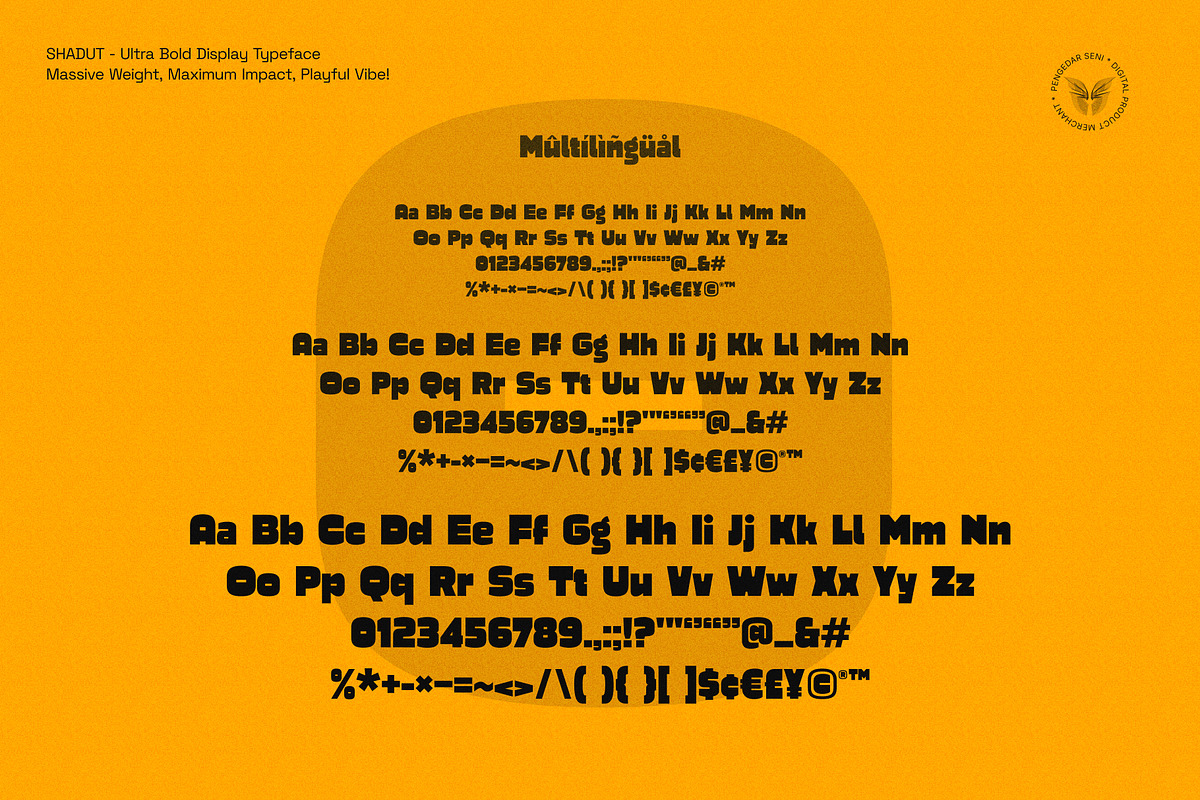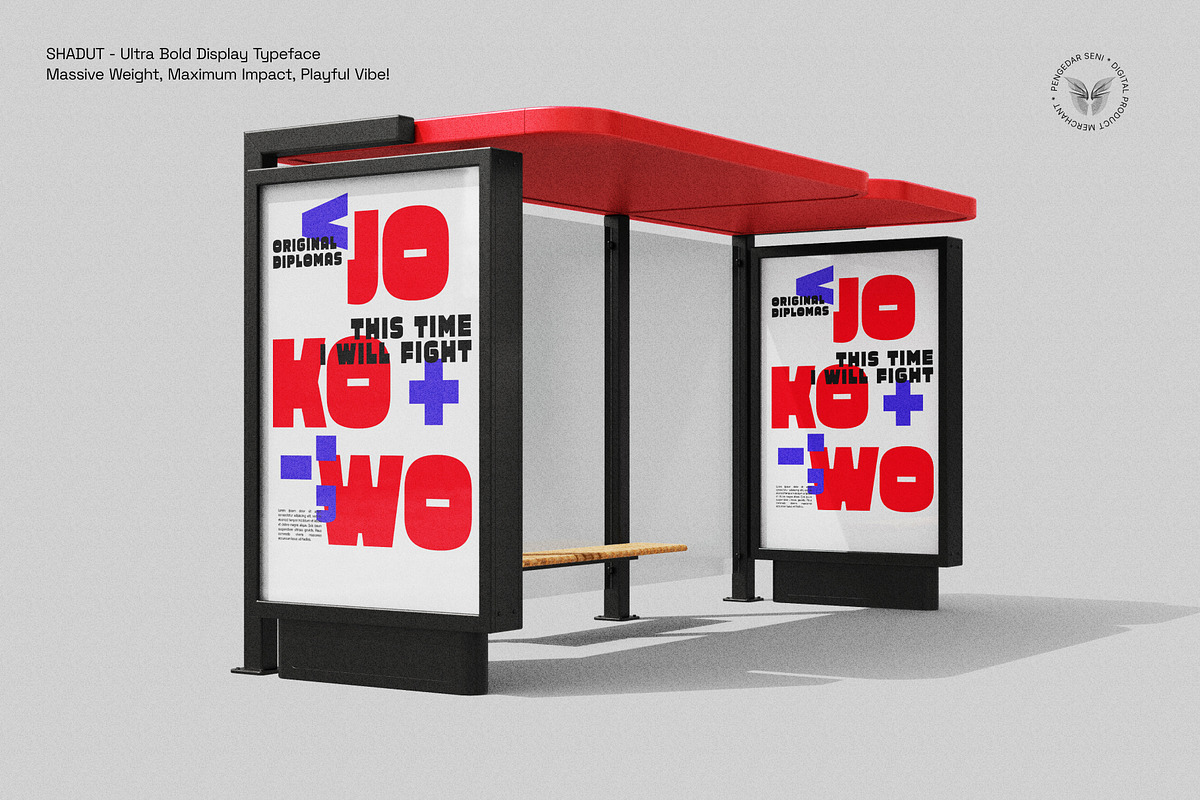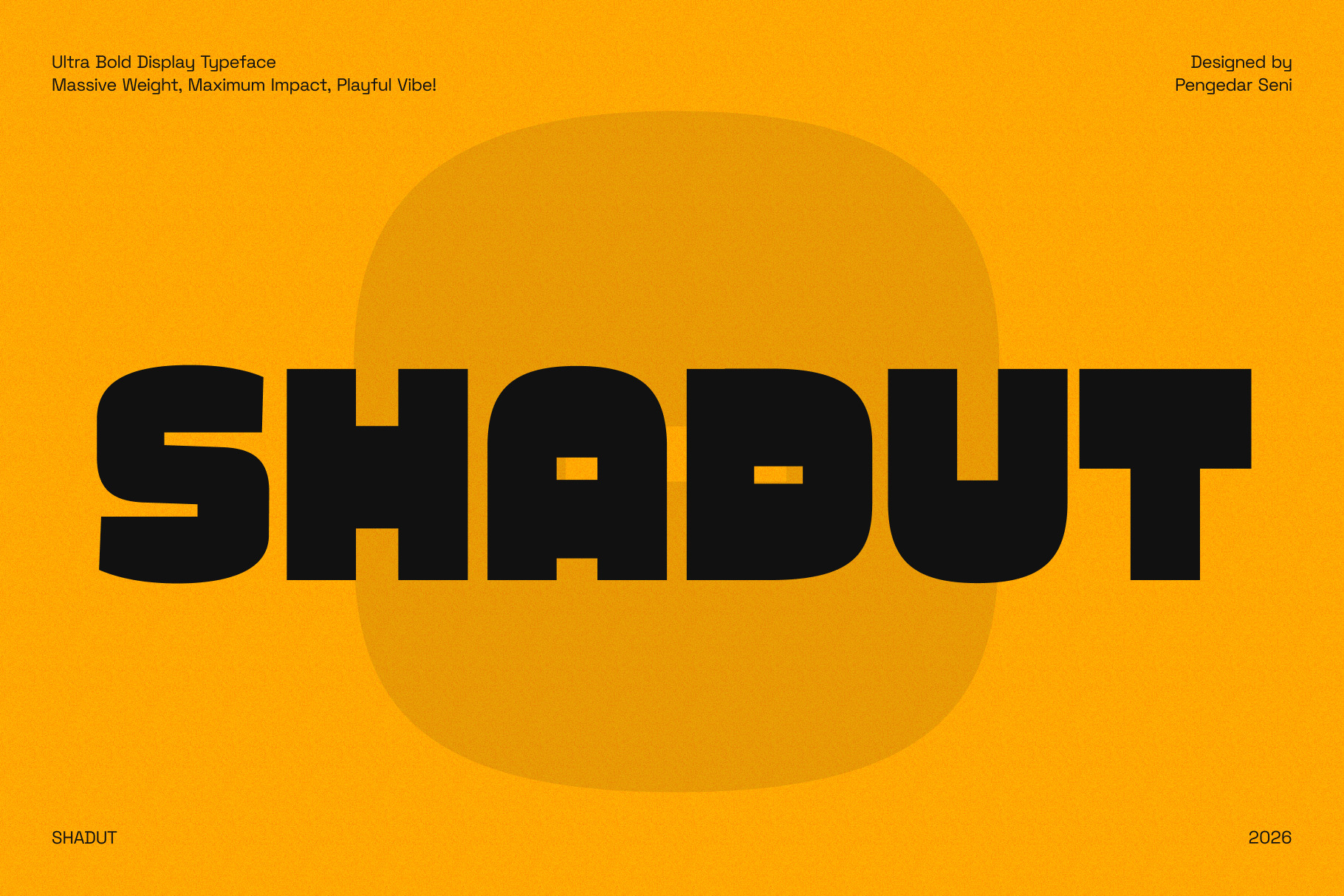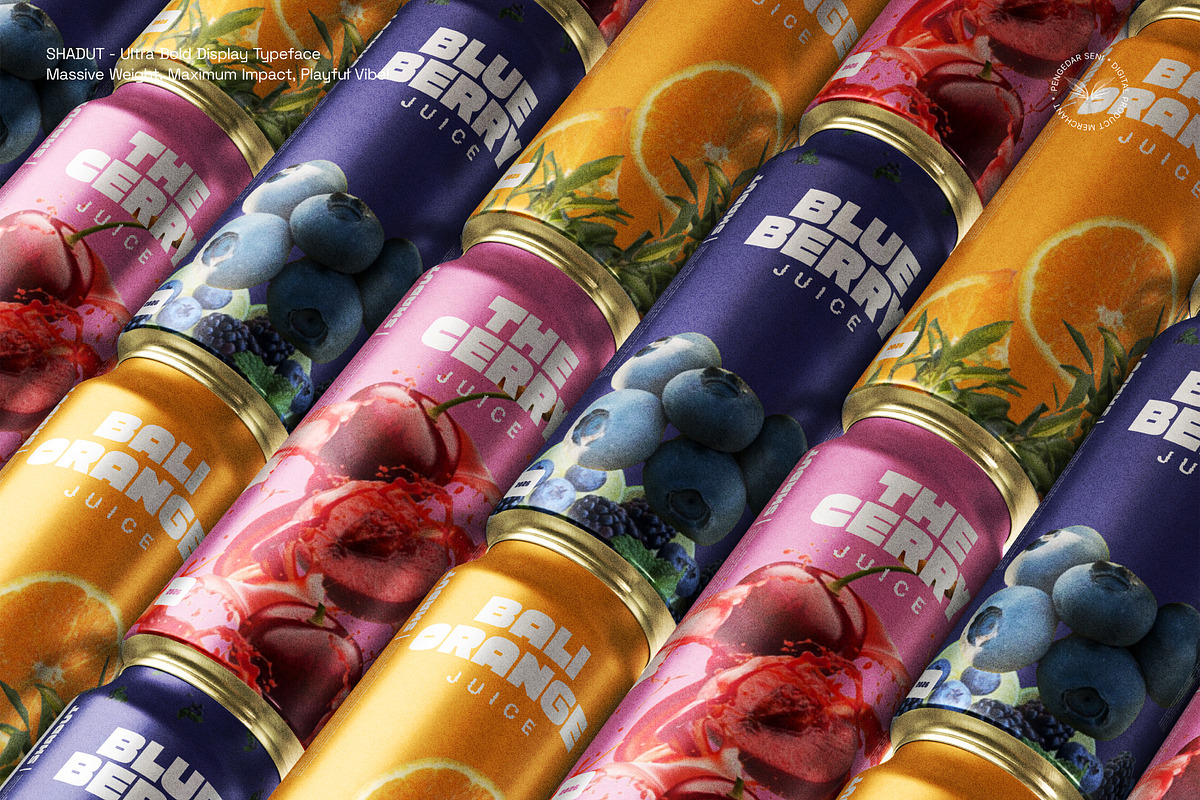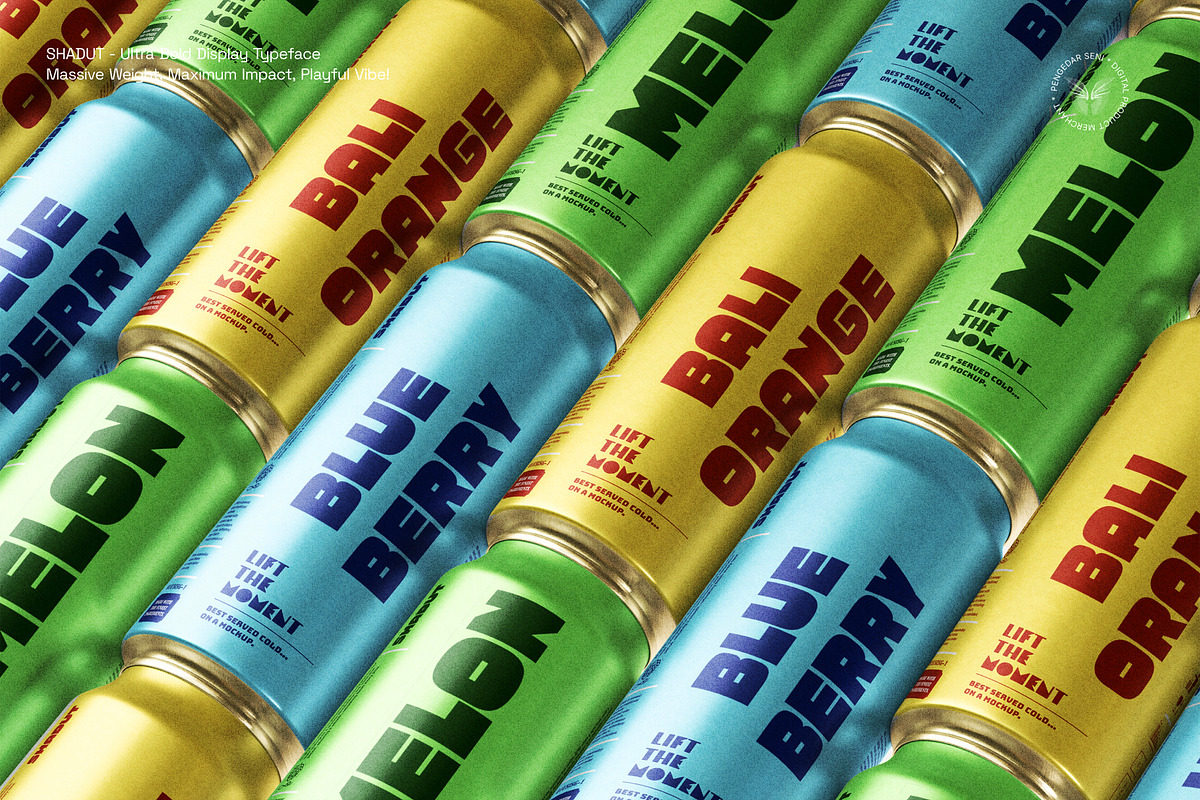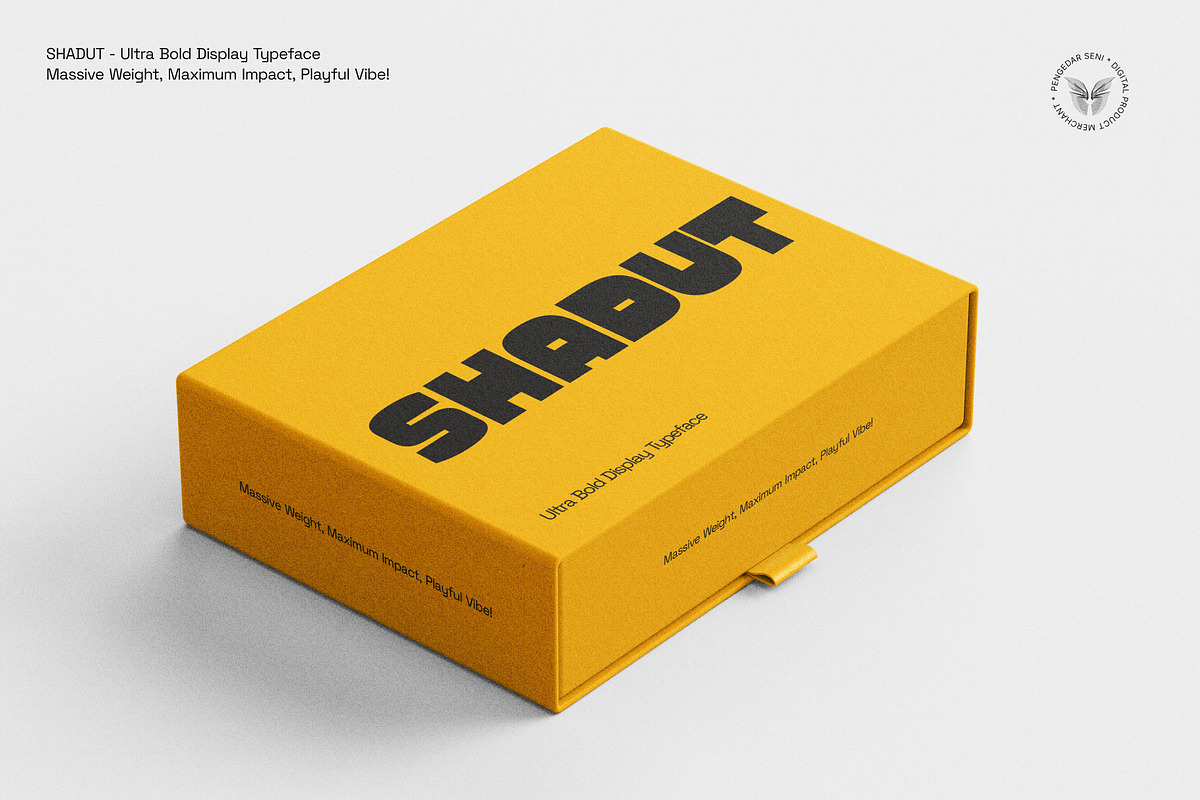
Shadut – Ultra Bold Display Typeface
Massive Weight, Maximum Impact, Playful Vibe!
Shadut is a heavy, chunky, and ultra-bold display typeface designed to grab attention instantly. Its massive structure and subtly rounded corners give it a powerful yet approachable appearance. The name "Shadut" carries a quirky and playful ring to it—evoking a sense of being delightfully plump, bold, and full of character. Whether you want to be loud, playful, or edgy, Shadut is built to make a massive statement.
🎨 Why Choose Shadut?
✅ Ultra Bold & Chunky – Stands out effortlessly, making it perfect for giant headlines and striking posters.
✅ Solid yet Friendly – The subtle rounded edges soften its massive weight, giving it a fun and energetic personality.
✅ Extensive Character Set – Includes Basic and Advanced Latin character sets for robust multilingual support.
✅ Versatile Impact – Ideal for streetwear apparel, snack packaging, bold branding, game titles, and eye-catching social media graphics.
Shadut brings heavyweight charm to your designs—where every word stands strong, solid, and full of character! ✨